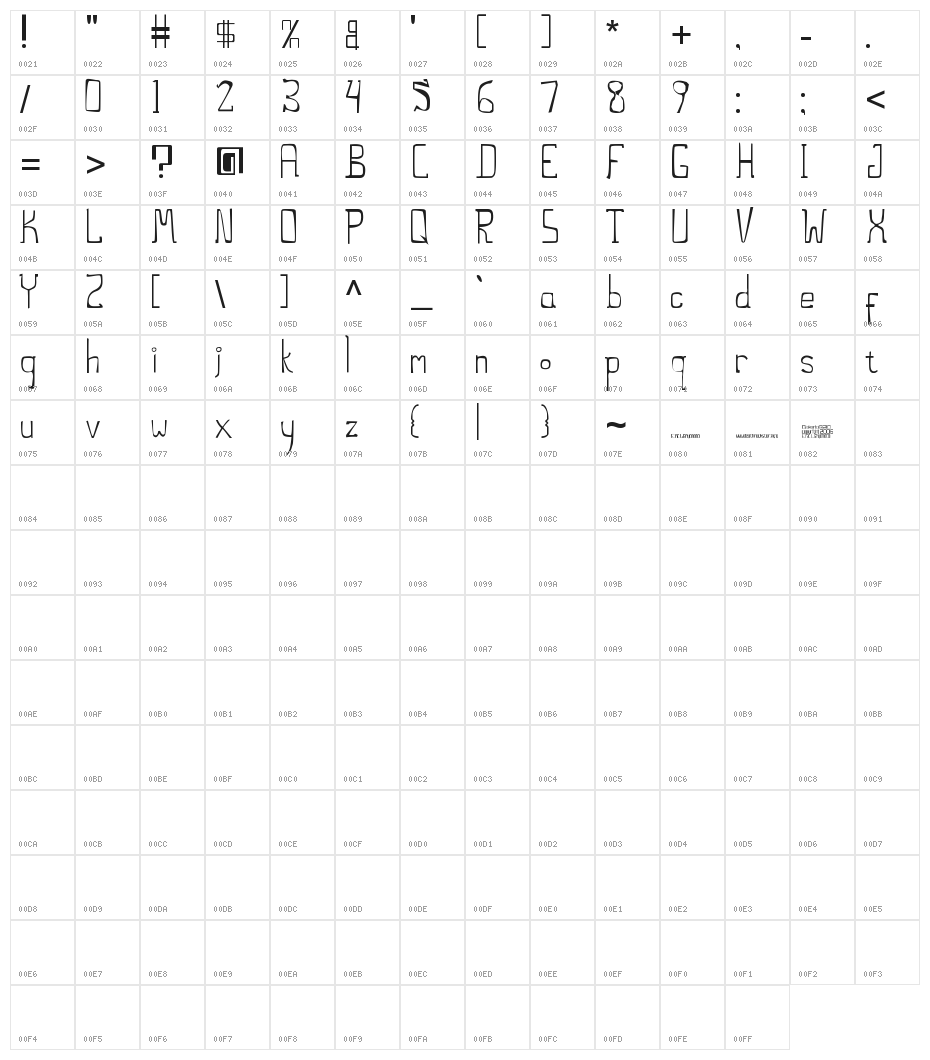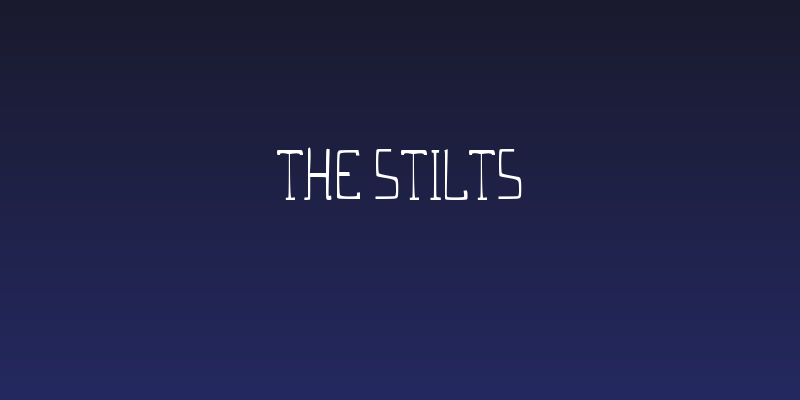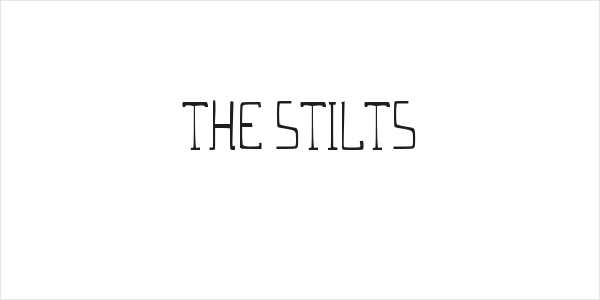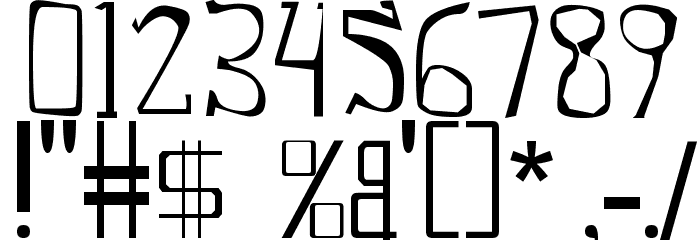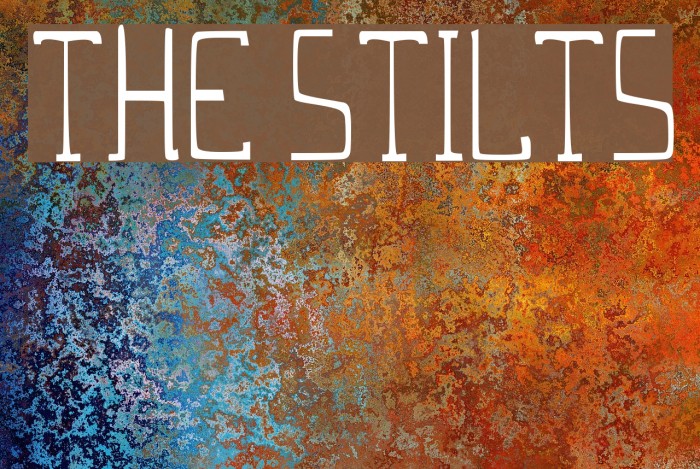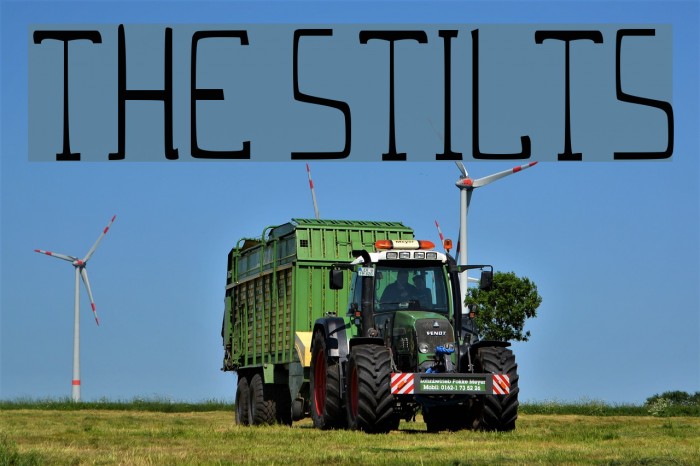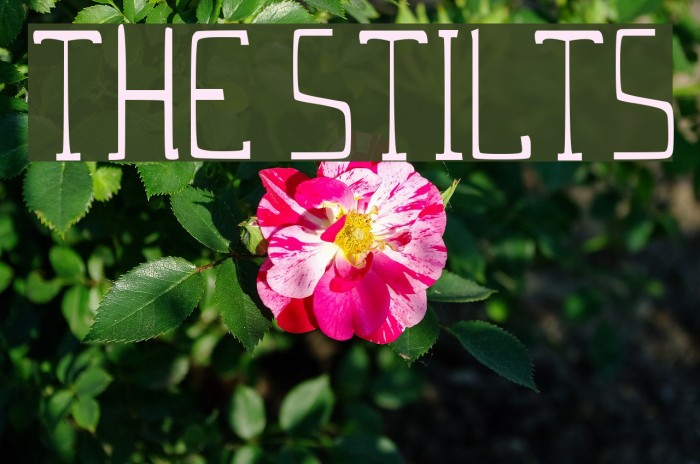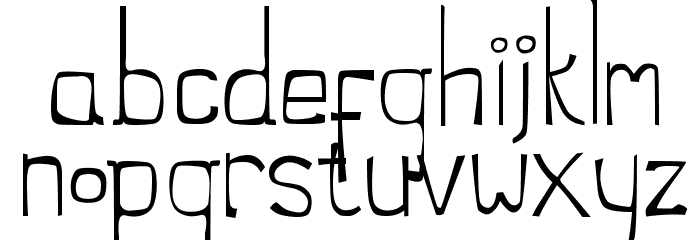
THE STILTS Font
THE STILTS Description
This font features a unique and modern design with elongated, narrow characters that give it a distinctive, stilt-like appearance. The uppercase letters are tall and slender, with a consistent height across the alphabet, while the lowercase letters maintain a similar style, offering a cohesive look. The numerals are equally stylized, with a playful yet structured form. Special characters are creatively integrated, maintaining the overall aesthetic. The font's design is both artistic and functional, making it suitable for various creative applications.
| Proposed Projects | Ideal for creative projects such as posters, logos, and branding materials that require a distinctive and artistic touch. |